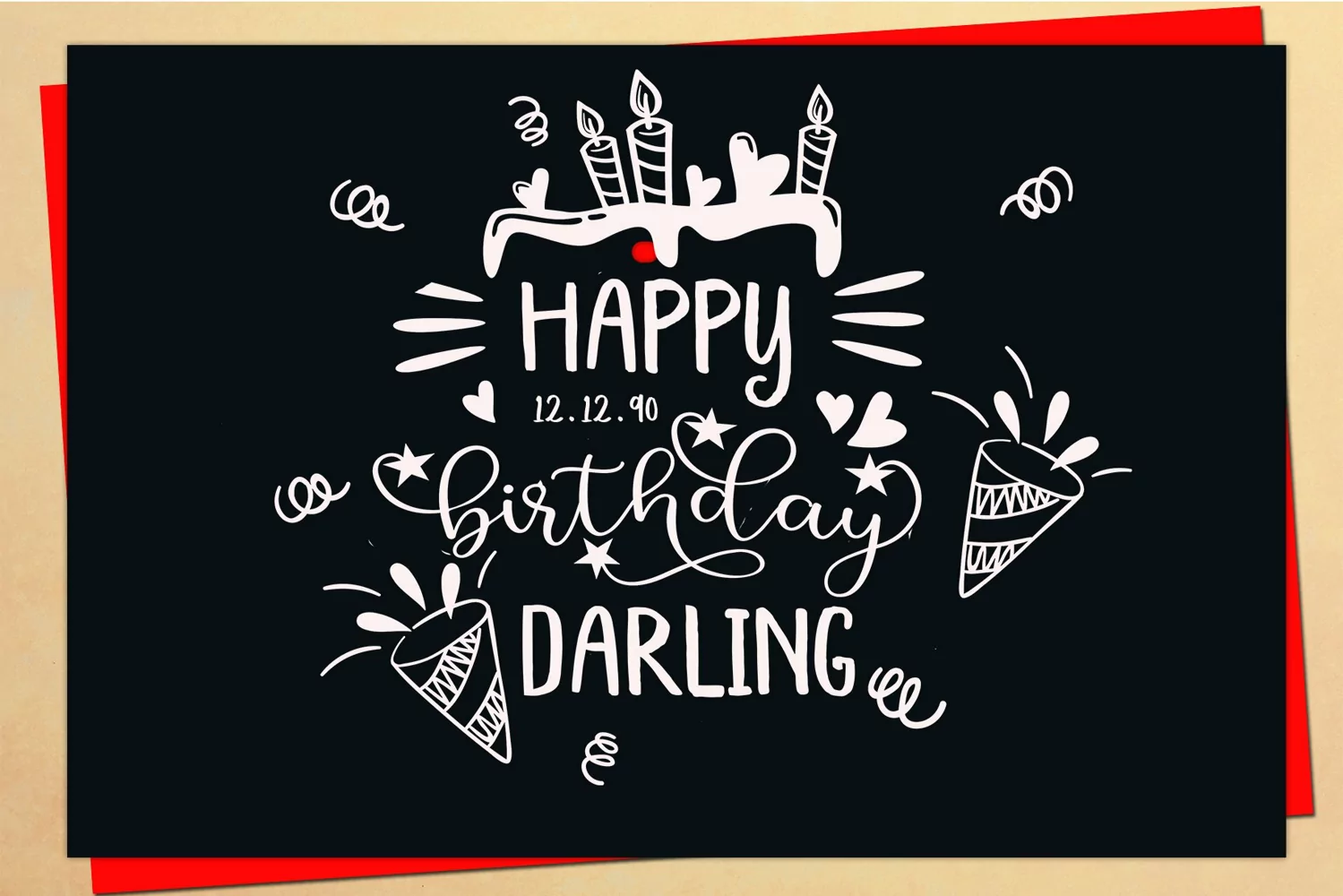
Sweet boho
Lighting Start - is a beautiful, hand-drawn duo of fonts with swashed ends featuring a half full star on Script 1 and full star on Script 2 as as a sans on Script 3 that creates a casual yet stylish combination. This font would be suitable for logos, branding projects, homeware designs, product packaging, mugs, quotes, posters, shopping bags, logos, t-shirts, book covers, business cards, invitation cards, congratulations. cards, and all your other beautiful projects.